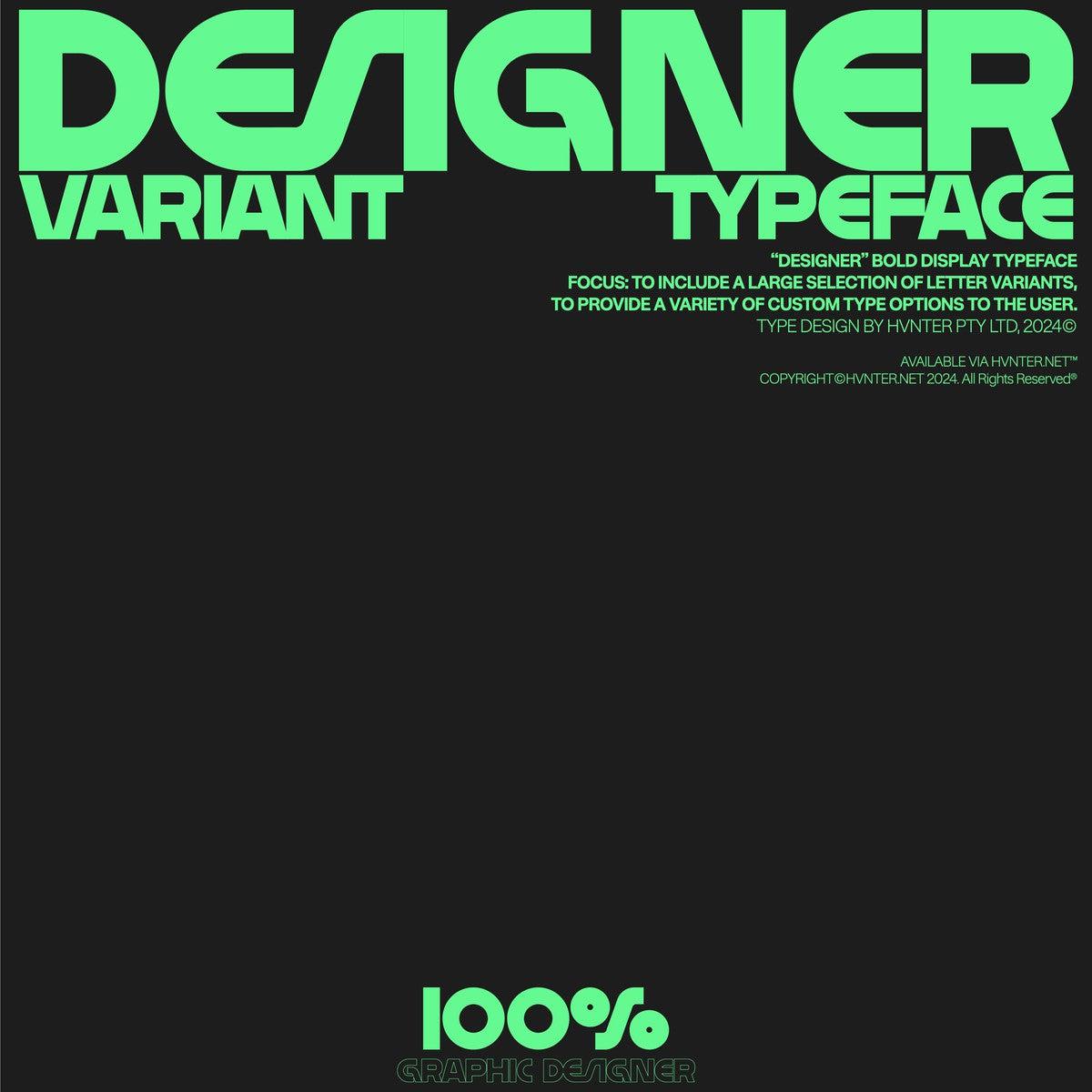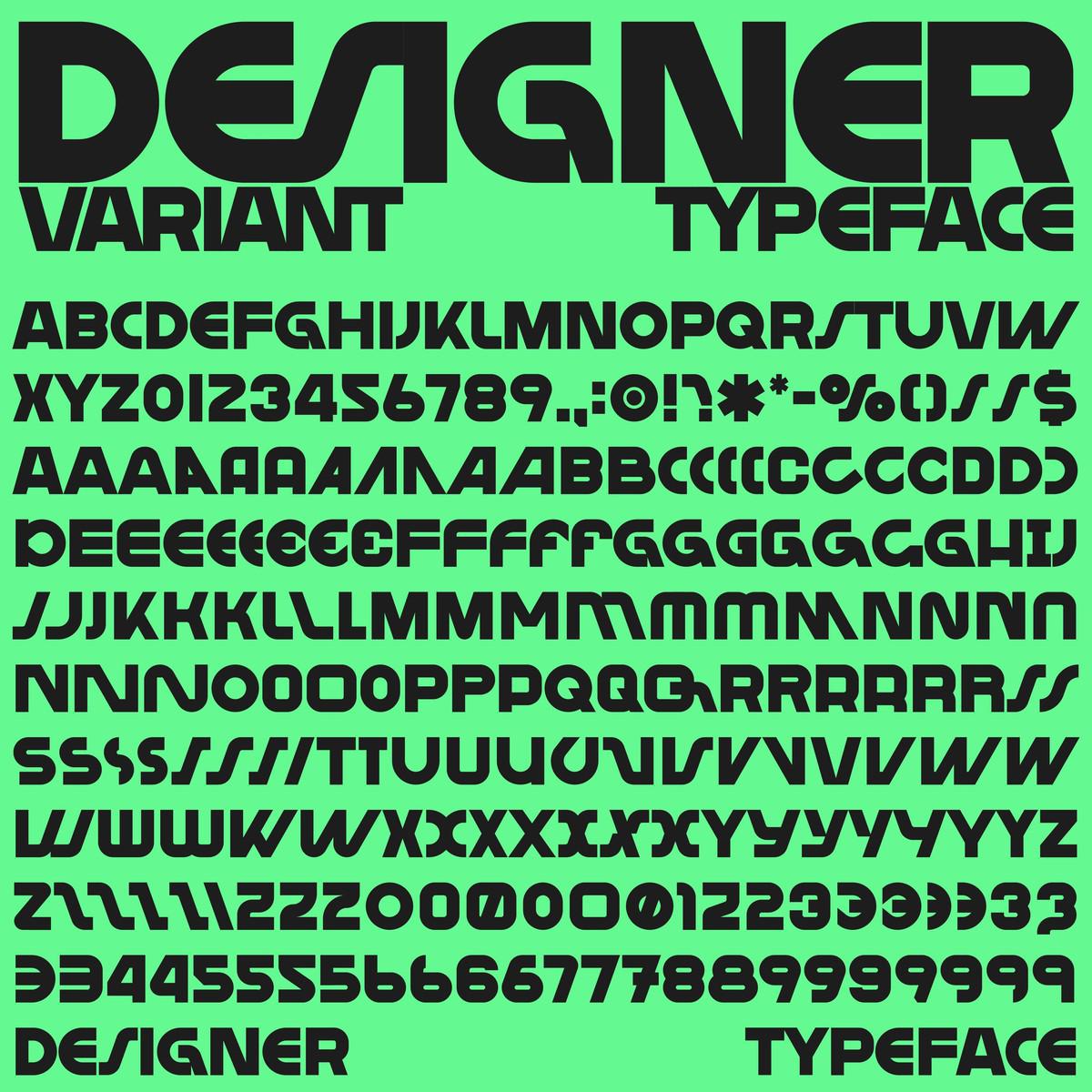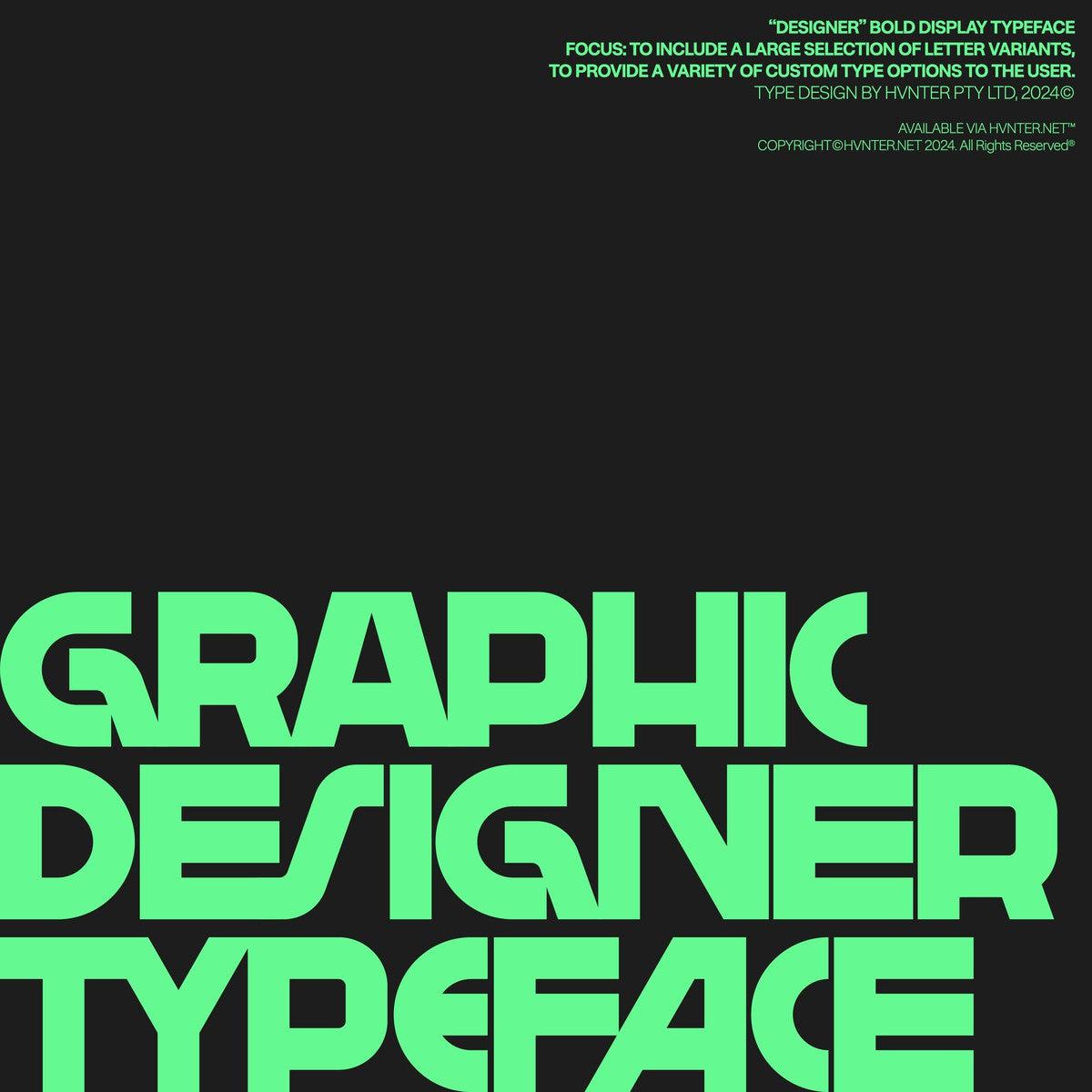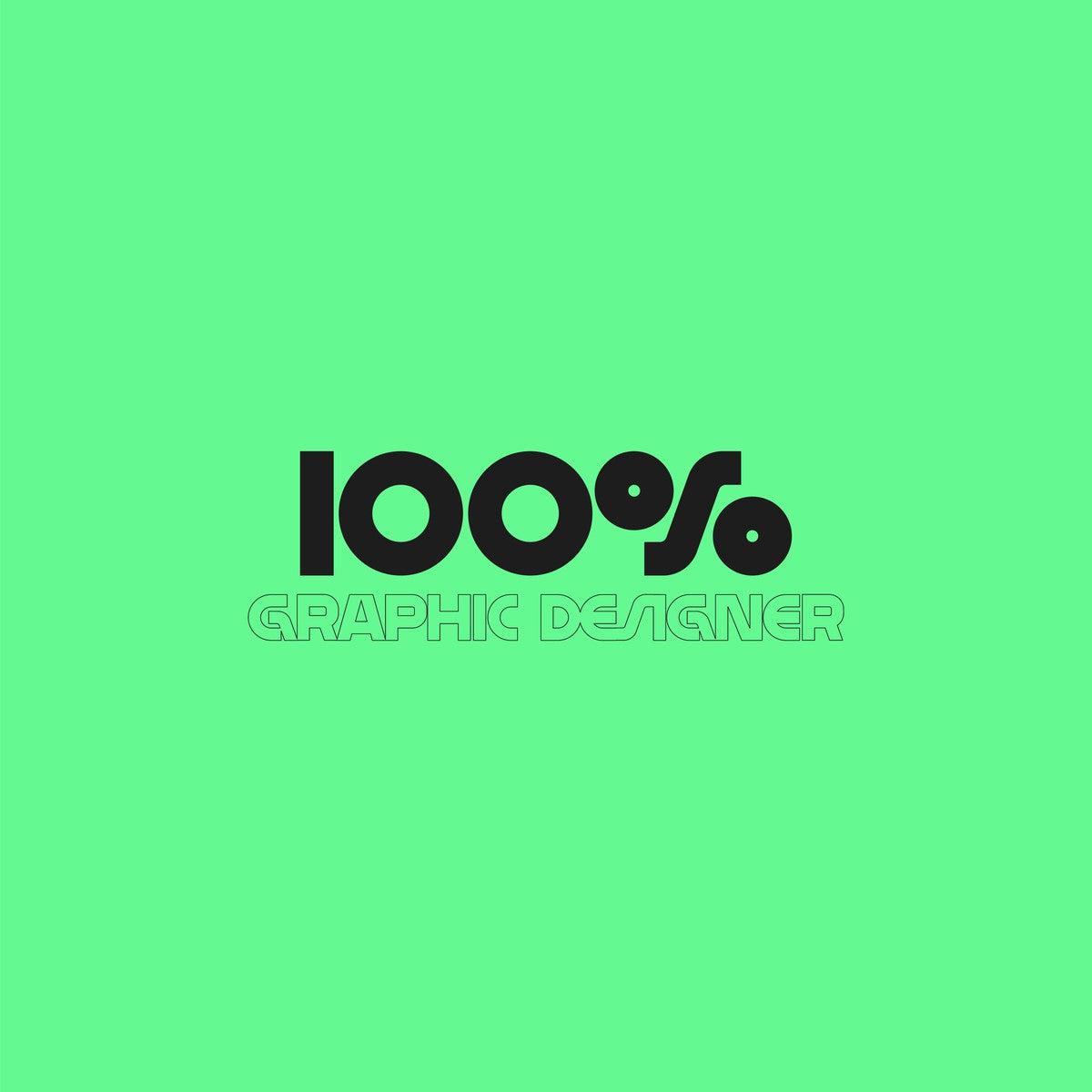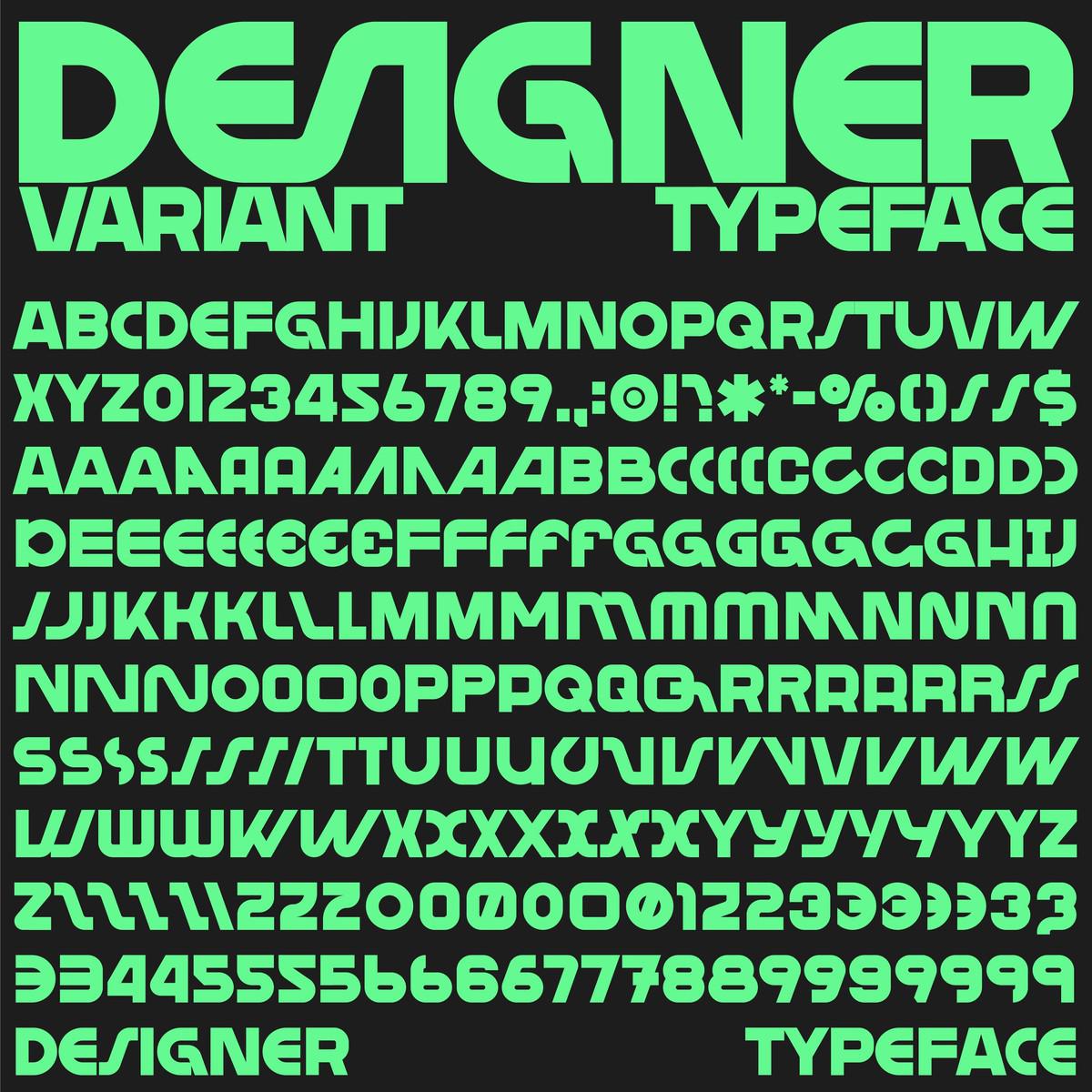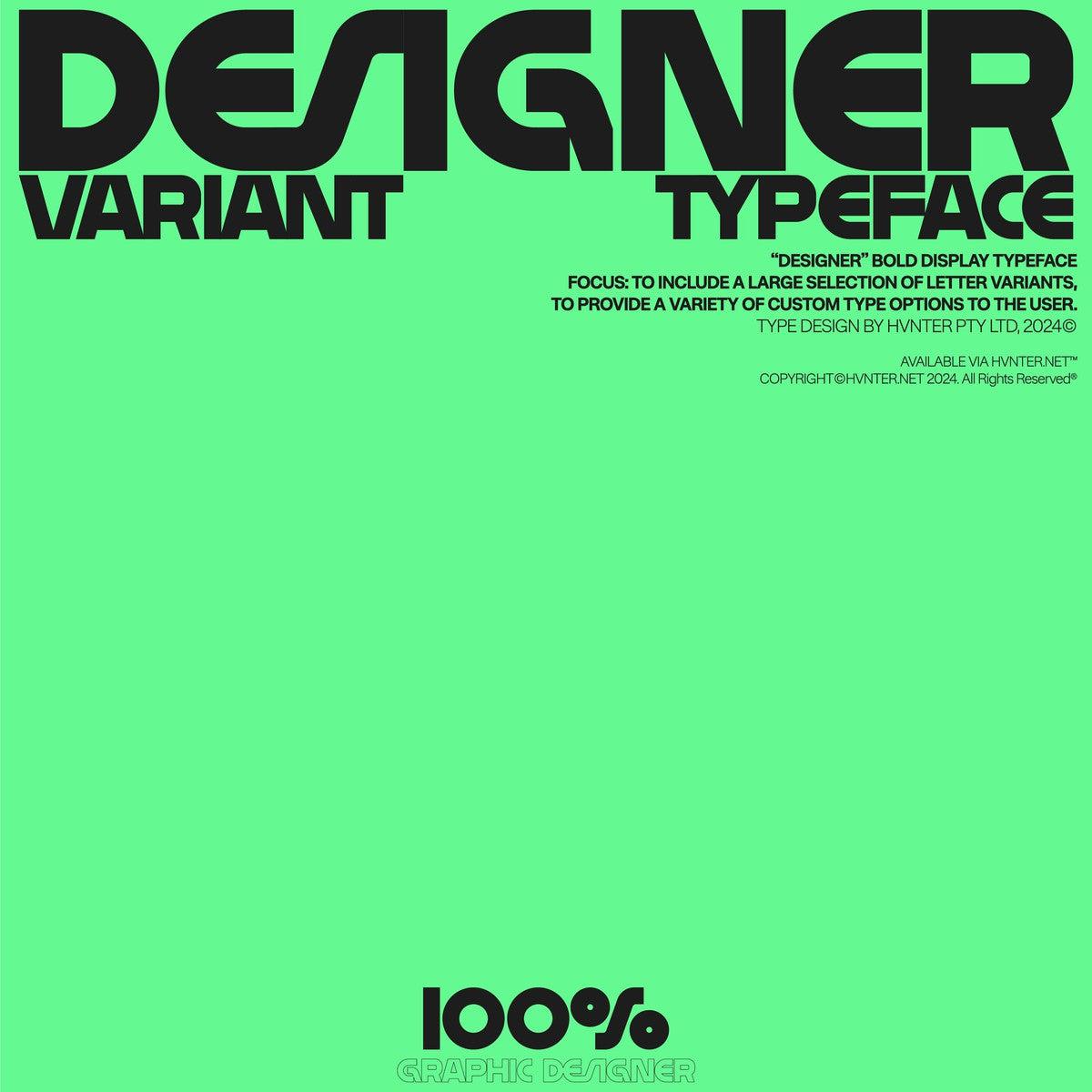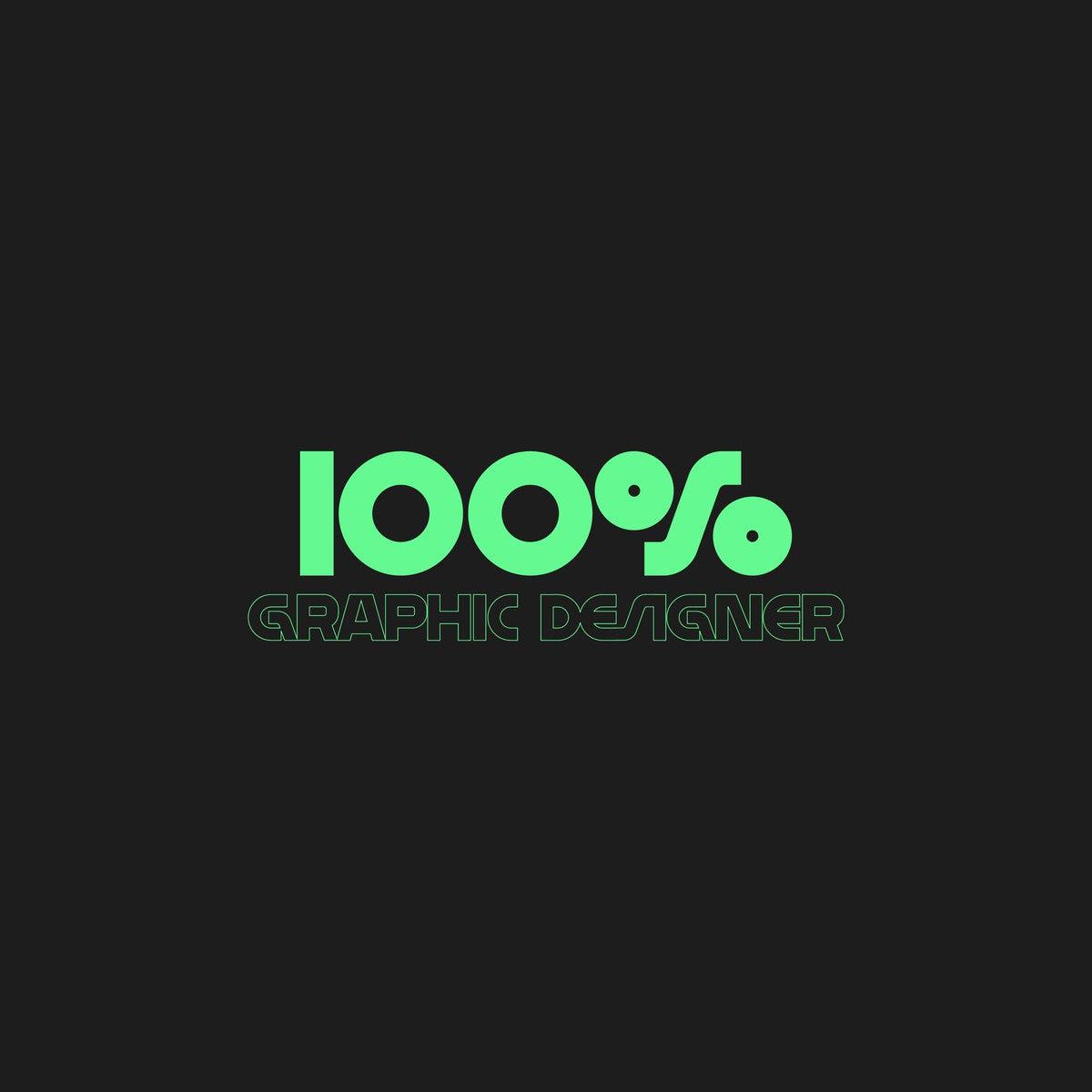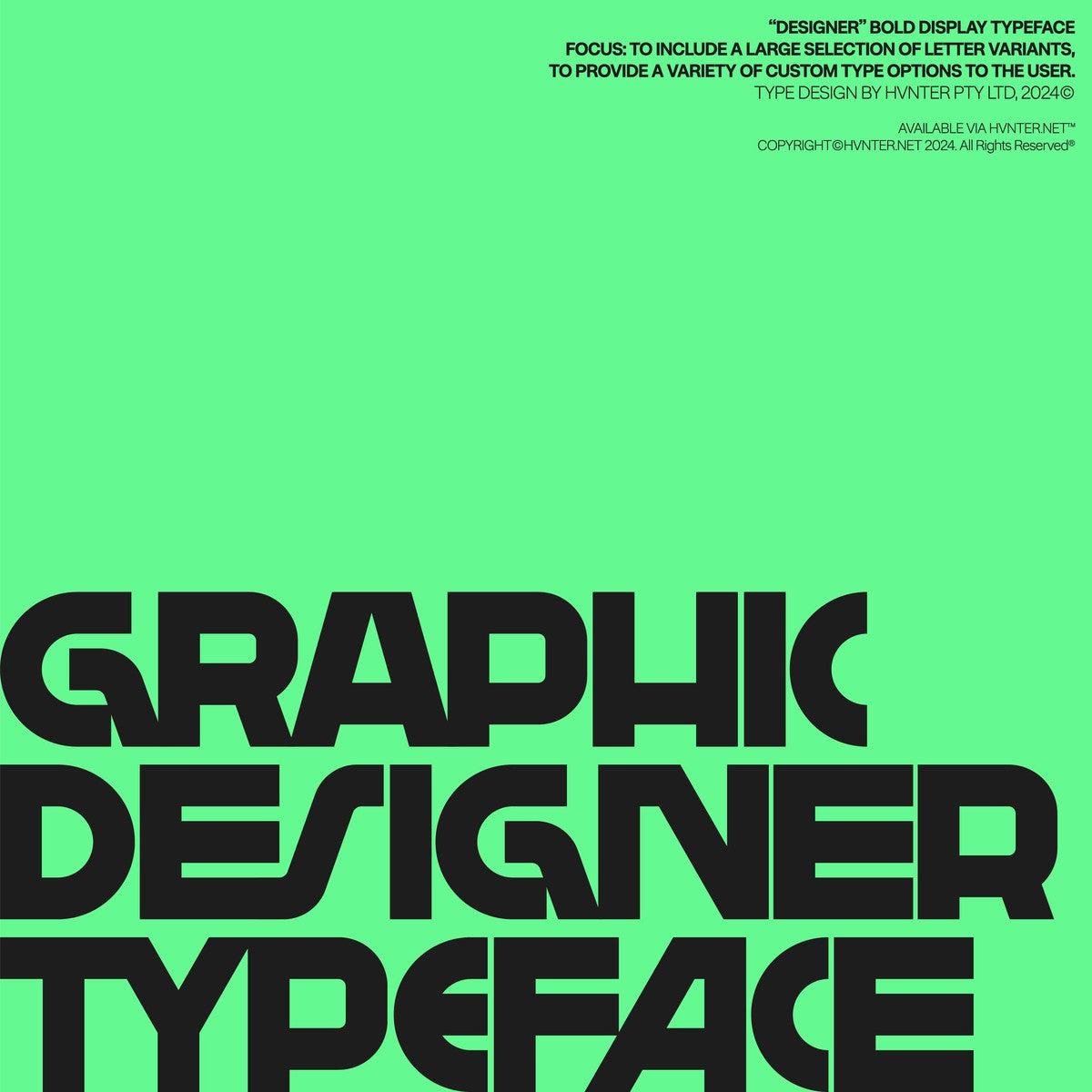
Designer Typeface
The Designer Typeface is a versatile font that provides a large selection of letter variations, including A-Z, 0-9, and basic symbols, allowing users to create their own custom type. The product's compatibility is not specified.